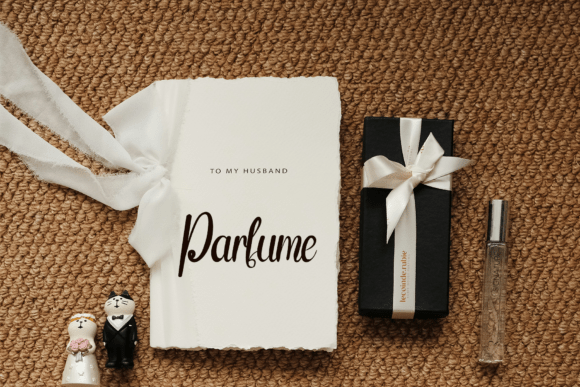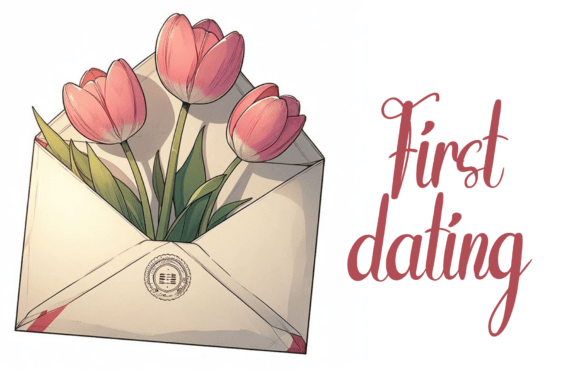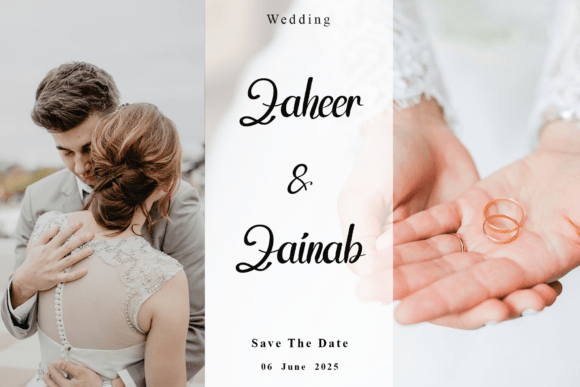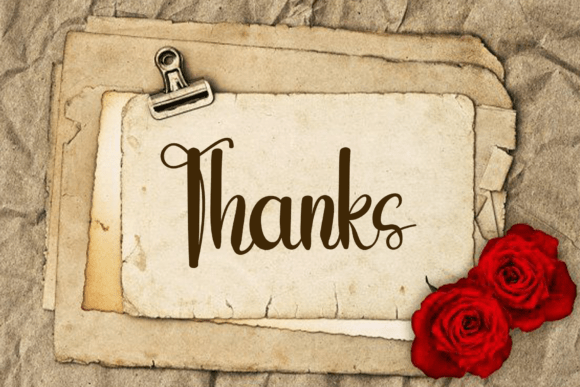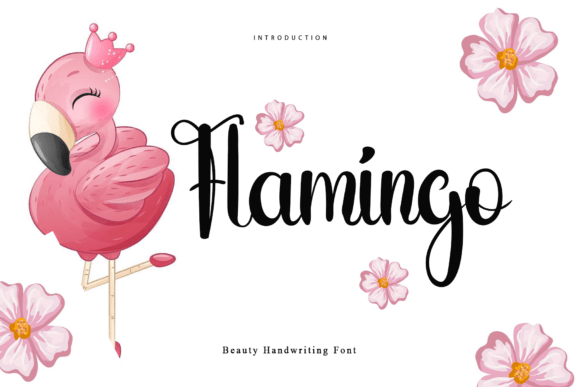
Introducing Flamingo Font: The Perfect Addition to Your Design Arsenal
Are you tired of using the same old fonts in your designs? Look no further than Flamingo Font, a delicate handwritten font that’s sure to add a touch of elegance and uniqueness to your projects. In this article, we’ll dive into the world of Flamingo Font, exploring its features, uses, and benefits for designers and crafters alike.
What is Flamingo Font?
Flamingo Font is a carefully crafted handwritten font designed to bring a cool and unique touch to your designs. Its delicate strokes and elegant curves make it perfect for a wide range of applications, from writing letters and invitations to creating titles and labels for food products.
Key Features of Flamingo Font
- Delicate Handwritten Style: Flamingo Font boasts a beautiful, handwritten style that’s perfect for adding a personal touch to your designs.
- Unique and Elegant: With its elegant curves and strokes, Flamingo Font is sure to make your designs stand out from the crowd.
- Versatile: This font can be used for a wide range of applications, including letters, invitations, titles, labels, and more.
- Easy to Read: Despite its delicate nature, Flamingo Font is easy to read, making it perfect for body text and headings.
Uses of Flamingo Font
So, how can you use Flamingo Font in your designs? Here are a few ideas to get you started:
- Invitations and Event Planning: Use Flamingo Font to create beautiful invitations, save-the-dates, and event programs.
- Food and Beverage Branding: Add a touch of elegance to your food product labels, menus, and branding materials with Flamingo Font.
- Stationery and Lettering: Create stunning stationery sets, journals, and letters with Flamingo Font.
- Digital and Print Media: Use Flamingo Font in your digital and print media, including social media graphics, flyers, and brochures.
Benefits of Using Flamingo Font
So, why should you choose Flamingo Font for your designs? Here are a few benefits to consider:
- Adds a Personal Touch: Flamingo Font’s handwritten style adds a personal touch to your designs, making them more relatable and engaging.
- Stand Out from the Crowd: With its unique and elegant style, Flamingo Font is sure to make your designs stand out from the competition.
- Easy to Pair with Other Fonts: Flamingo Font pairs well with a wide range of fonts, making it easy to create stunning font combinations.
- High-Quality Design: Flamingo Font is designed with high-quality craftsmanship in mind, ensuring that your designs look professional and polished.
Tips for Using Flamingo Font
Here are a few tips to keep in mind when using Flamingo Font in your designs:
- Use it Sparingly: While Flamingo Font is beautiful, it’s best to use it sparingly to avoid overwhelming your designs.
- Pair it with Bold Fonts: Pair Flamingo Font with bold fonts to create stunning contrast and visual interest.
- Experiment with Colors: Try pairing Flamingo Font with different colors to add depth and personality to your designs.
- Pay Attention to Kerning: Make sure to adjust the kerning of Flamingo Font to ensure that it looks its best in your designs.
In conclusion, Flamingo Font is a beautiful and versatile handwritten font that’s perfect for designers and crafters looking to add a touch of elegance and uniqueness to their projects. With its delicate strokes, elegant curves, and wide range of applications, Flamingo Font is sure to become a staple in your design arsenal. So why wait? Give Flamingo Font a try today and see the difference it can make in your designs!